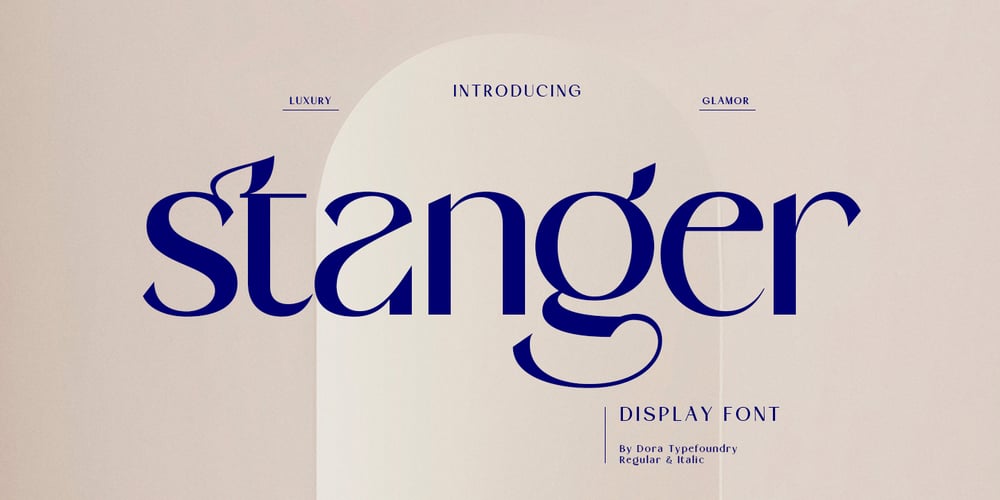
Stanger Font Family was designed by Zahratul Laila and published by Dora Typefoundry. Stanger contains 2 styles and family package options. Stanger – a sans serif look with simple, clean and visual elegance with smooth curves and beautiful ligatures, A very versatile font that works in both large and small sizes. This font is suitable for a wide variety of projects such as: headlines, logos, labels, branding projects, magazines, homeware designs, product packaging, mugs, quotes, posters, and more. It can also be more expressive and fun, thanks to the many alternatives and binders that combine harmoniously in this font and make it more interesting and versatile. Try to change alternatives, binders and you will get many options for your project which will make it bold & beautiful. Features:• Full set of uppercase, lowercase• Ligatures• Alternative• A wide variety of numbers, symbols & punctuation• Characters with accents• Support Multiple Languages• PUA encoded WHAT IS INCLUDED:• Stanger – Regular• Stanger – Italic This type of family has become the work of true love, making it as easy and fun as possible.I really hope you enjoy it!I can’t wait to see what you do with Stanger Display! Feel free to use the #Dora Typefoundry and #Stanger Display font tags to show what you’ve done visit my Instagram : https://www.instagram.com/doratypefoundry/ Thank you!